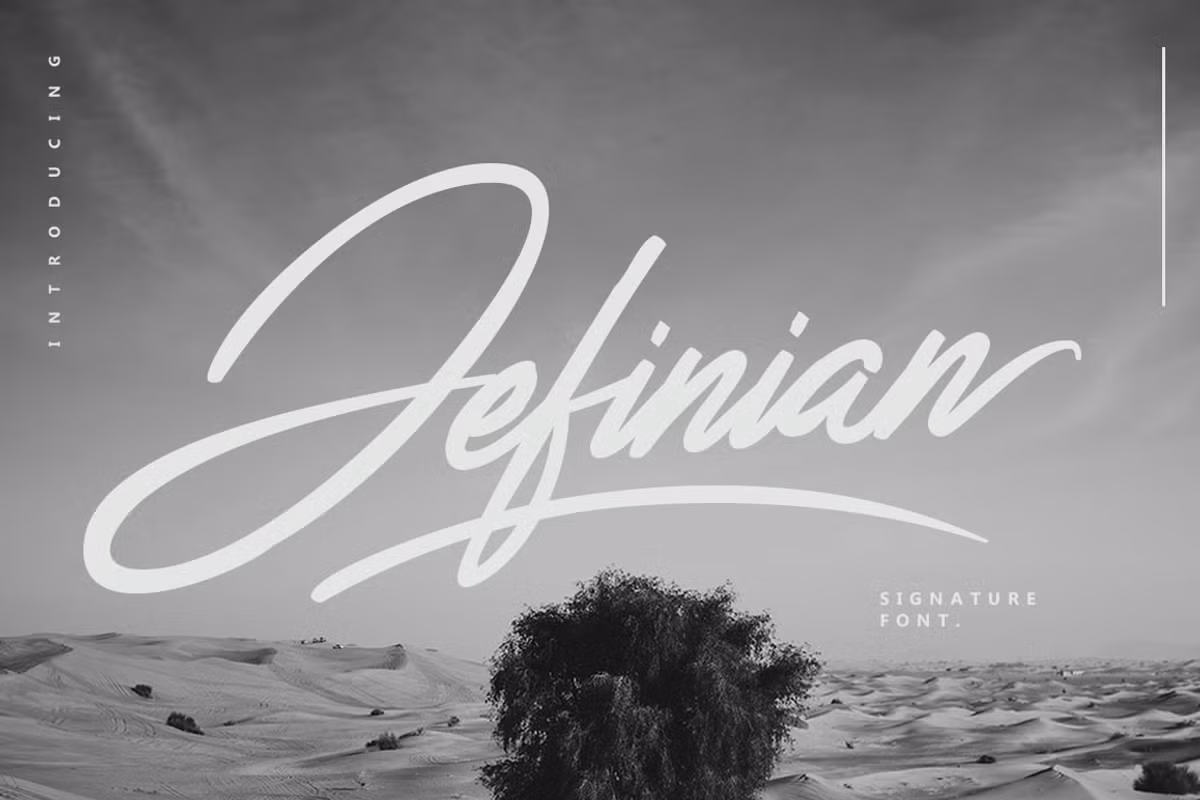
Jefinian Script Font Free Download is a graceful and flowing typeface that combines elegance with a handcrafted feel. Please note: you must purchase this font for commercial use, but you can test it through a free download. With its smooth curves, stylish swashes, and natural movement, Jefinian is ideal for wedding invitations, beauty branding, quotes, social media graphics, and lifestyle blogs.
This font brings a sense of romance and sophistication to any project, making your text look polished yet personal. Whether you're designing a luxury logo or a heartfelt message, Jefinian Script Font Free Download delivers charm and versatility in every stroke. It works seamlessly with Adobe Illustrator, Photoshop, Canva, and other design tools—making it easy for creatives at all levels. Download it now for personal use and let Jefinian elevate your design work with elegance and handwritten warmth.